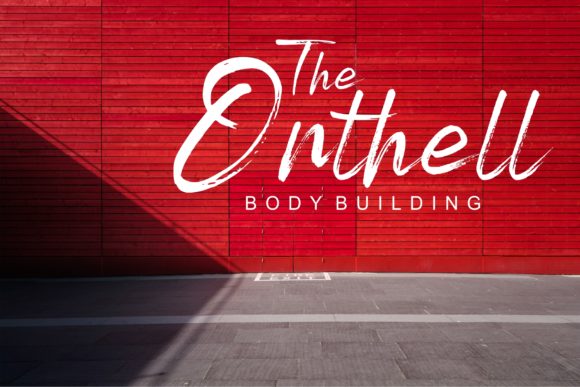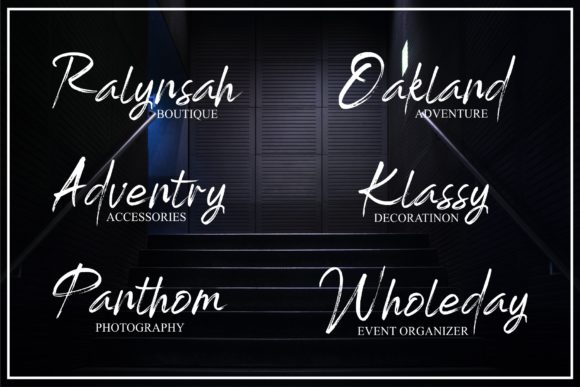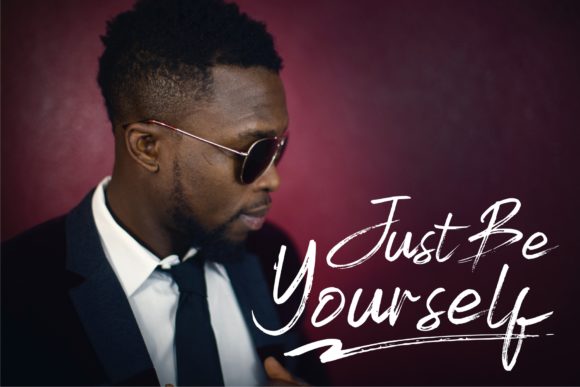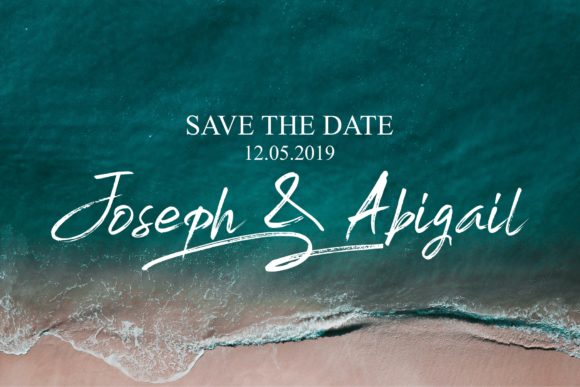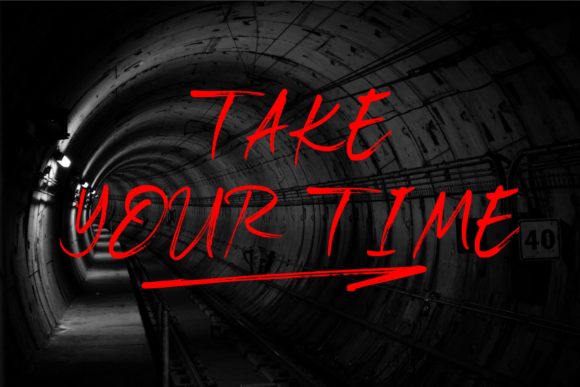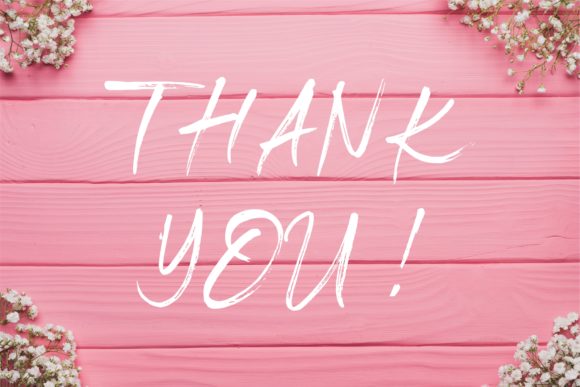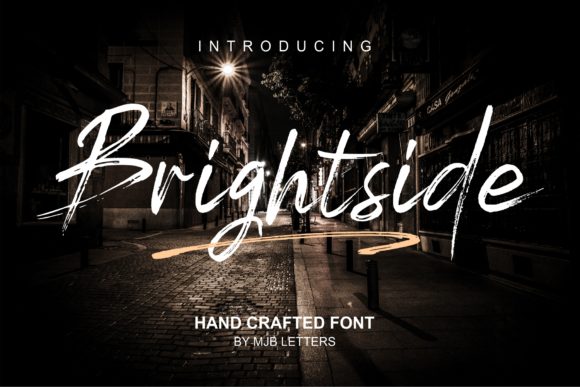
Introducing Brightside Font: A Bold and Authentic Handwritten Delight
Are you tired of using the same old fonts in your designs? Look no further than Brightside Font, a highly original and unique handwritten font that’s sure to capture your heart. With its bold and authentic feel, Brightside is the perfect addition to any design project that requires a touch of contemporary charm.
The Story Behind Brightside Font
Brightside Font is a carefully crafted handwritten font that’s designed to evoke a sense of personality and style. Its creator, [font designer name], drew inspiration from a range of sources, including classic handwriting and modern calligraphy. The result is a font that’s both nostalgic and cutting-edge, with a unique character that’s sure to set your designs apart.
What Makes Brightside Font So Special?
So, what sets Brightside Font apart from other fonts on the market? Here are just a few of its standout features:
- Bold and Authentic Feel: Brightside Font has a confident, expressive quality that’s perfect for making a statement. Its bold strokes and authentic feel make it ideal for use in headlines, titles, and other design elements where you want to grab attention.
- Contemporary Charm: Despite its bold and authentic feel, Brightside Font also has a distinctly modern edge. Its clean lines, subtle nuances, and carefully crafted letterforms make it perfect for use in a wide range of design applications, from branding and packaging to digital media and more.
- Highly Legible: One of the key benefits of Brightside Font is its high legibility, even at smaller sizes. This makes it perfect for use in body text, captions, and other applications where readability is key.
- Versatile: Brightside Font is an incredibly versatile font that can be used in a wide range of design applications. Whether you’re working on a logo, brochure, website, or social media graphics, Brightside is the perfect choice.
Using Brightside Font in Your Designs
So, how can you use Brightside Font in your designs? Here are a few ideas to get you started:
- Branding and Identity: Use Brightside Font to create a bold and memorable brand identity that sets you apart from the competition.
- Headlines and Titles: Brightside Font is perfect for use in headlines and titles, where its bold and authentic feel can really make an impact.
- Packaging and Labeling: Add a touch of personality to your packaging and labeling with Brightside Font, which is perfect for use on product labels, packaging materials, and more.
- Digital Media: Brightside Font is also perfect for use in digital media, including social media graphics, website headers, and more.
Tips and Tricks for Getting the Most Out of Brightside Font
Here are a few tips and tricks for getting the most out of Brightside Font:
- Experiment with Different Sizes: Brightside Font looks great at a range of sizes, from large headlines to smaller body text. Experiment with different sizes to find the one that works best for your design.
- Play with Color: Brightside Font looks great in a range of colors, from bold and bright to more muted and subtle tones. Experiment with different colors to find the one that works best for your design.
- Combine with Other Fonts: Brightside Font pairs well with a range of other fonts, including sans-serif fonts, and more. Experiment with different font combinations to find the one that works best for your design.
In conclusion, Brightside Font is a highly original and unique handwritten font that’s perfect for designers and crafters looking to add a touch of contemporary charm to their designs. With its bold and authentic feel, Brightside is sure to capture your heart and inspire your creativity. So why wait? Download Brightside Font today and start creating stunning designs that stand out from the crowd!